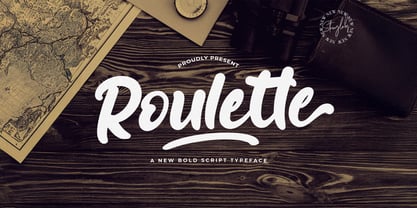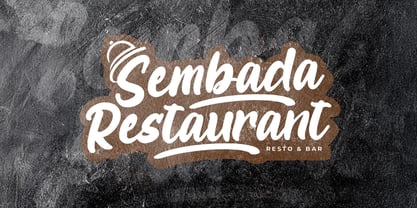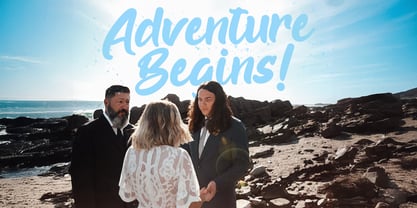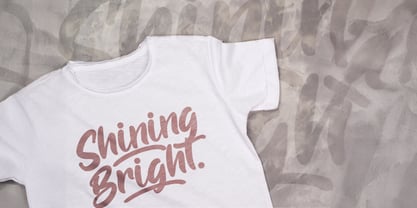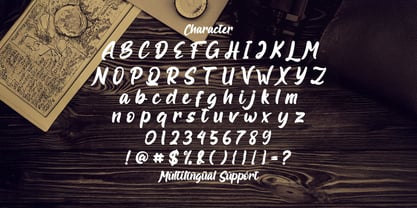
Die Schriftfamilie Roulette wurde von Virgiawan Listanto entworfen und von Stringlabs Creative Studio veröffentlicht. Roulette enthält 1 Stile.
Roulette is a bold script font that’s full of attitude, energy, and undeniable style. With thick strokes, smooth curves, and a handcrafted feel, Roulette brings a modern edge to classic script lettering perfect for designs that demand attention. It's playful yet strong, artistic yet clean a perfect balance for modern creatives.
Designer: Virgiawan Listanto
Herausgeber: Stringlabs Creative Studio
Foundry: Stringlabs Creative Studio
Eigentümer des Designs: Stringlabs Creative Studio